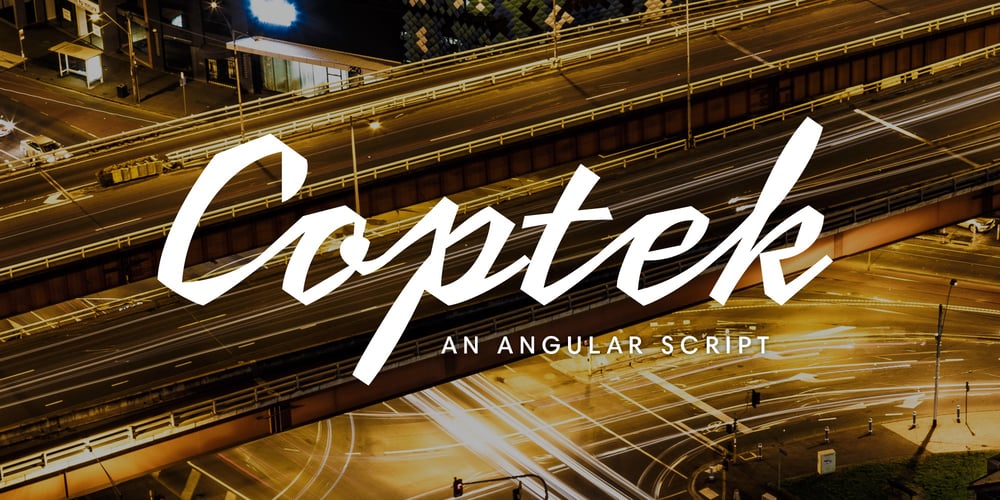
Coptek Font Family was designed by David Quay and published by ITC. Coptek contains 1 styles and family package options. Coptek is the work of David Quay and gets its name from the high tech look imposed on the design of copperplate script. The capitals are initials which fit well with a lower case alphabet whose letters join in the style of true handwriting.